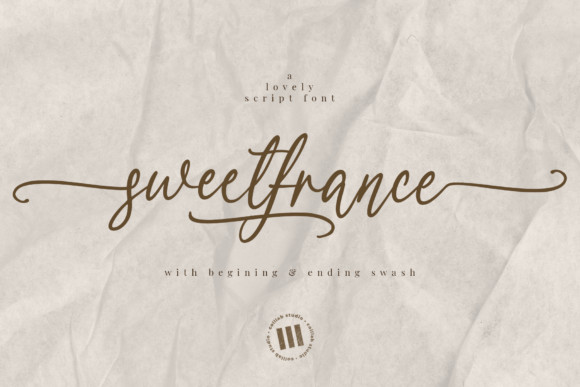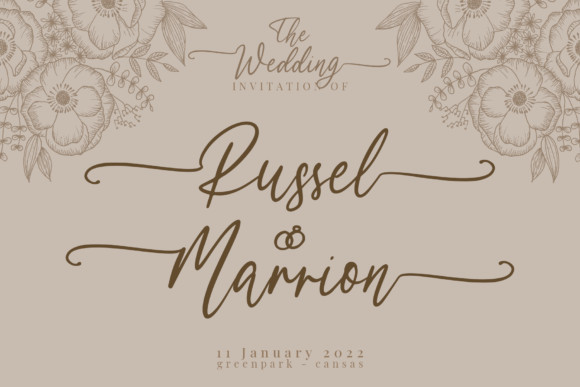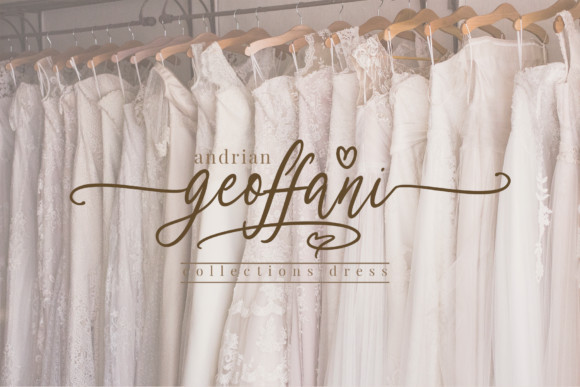
Sweetfrance Font
Sweetfrance is a gorgeous script font. It features a varying baseline, smooth lines, and three great stiles. Get inspired by its sweet look and use it for wedding invitations, greeting cards and more!